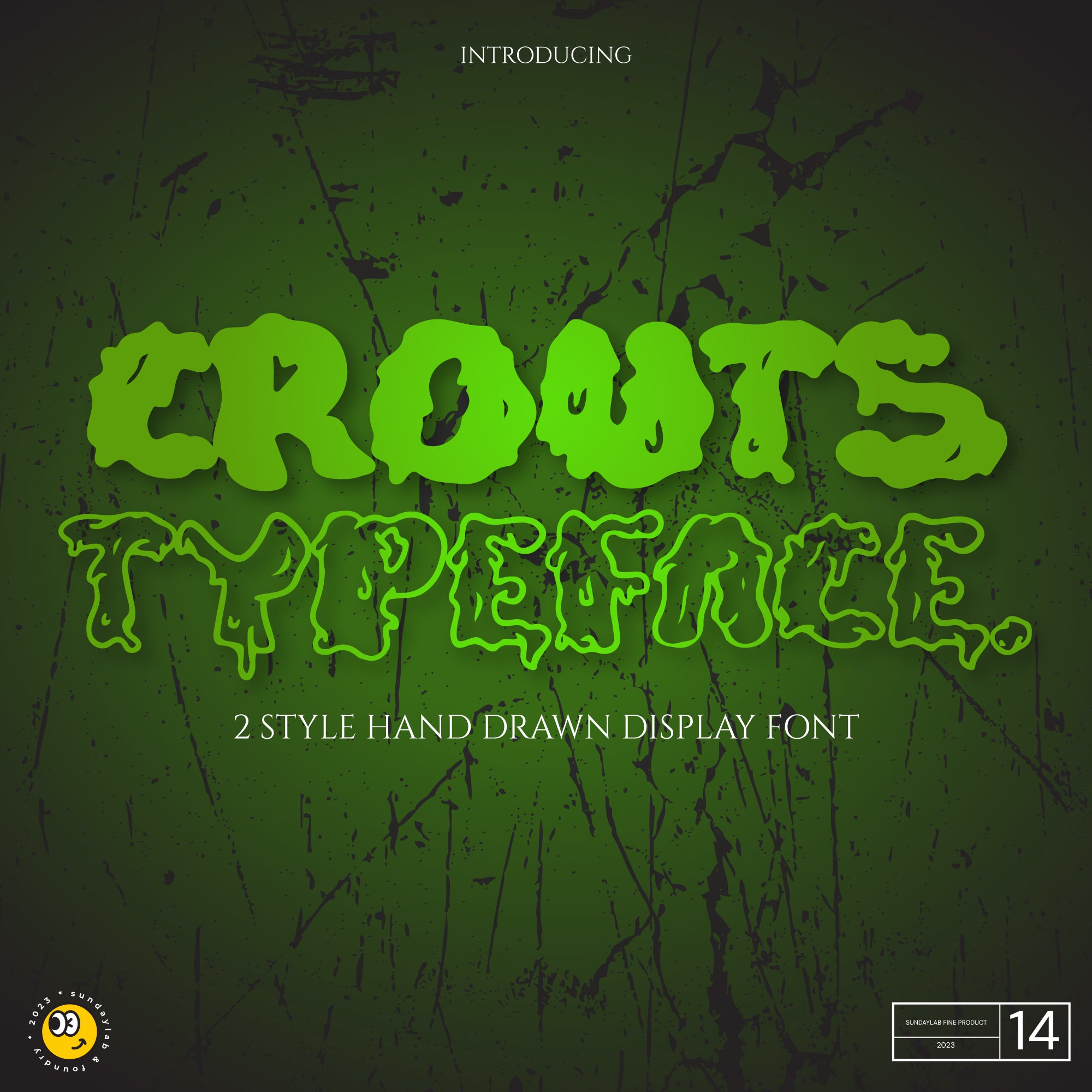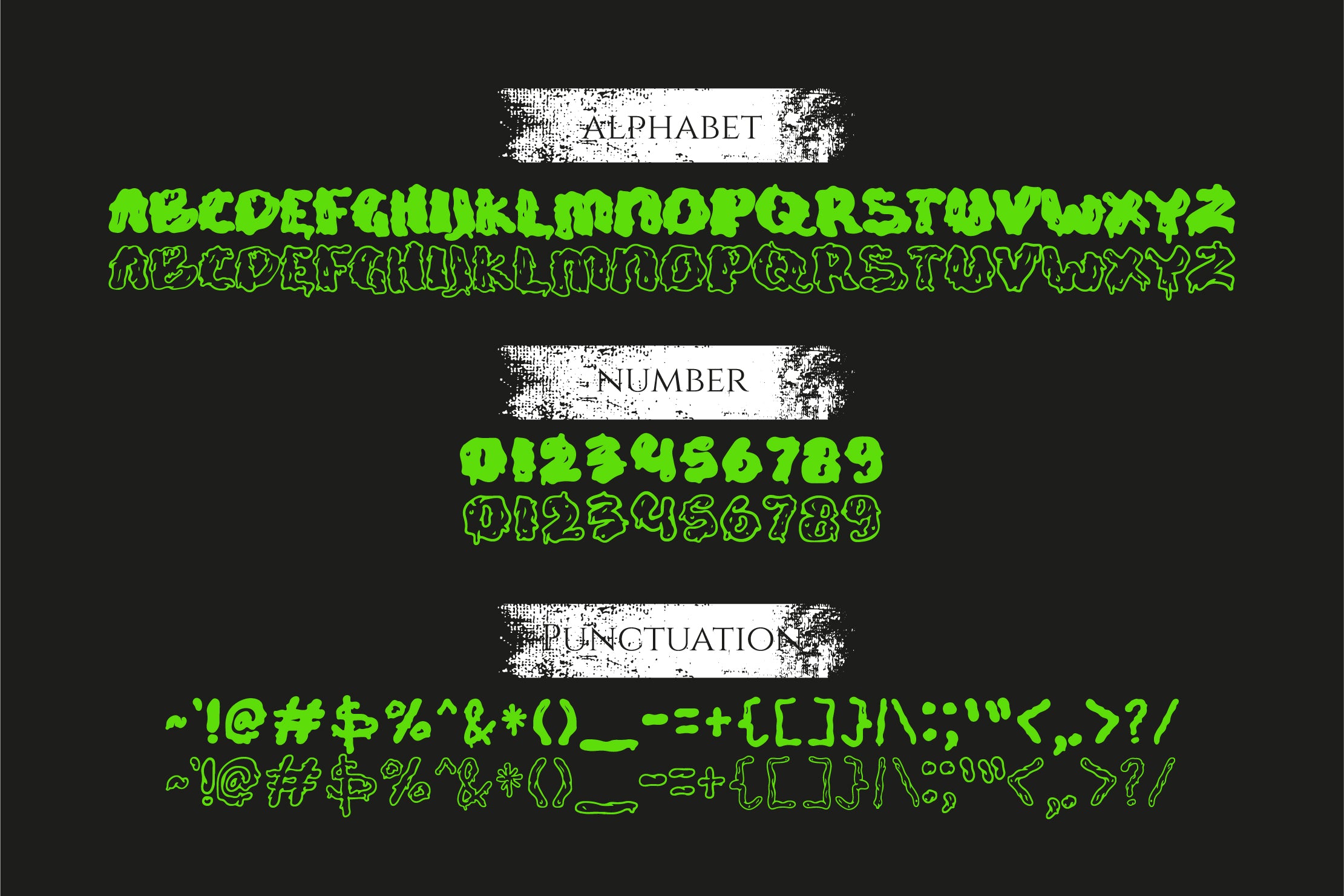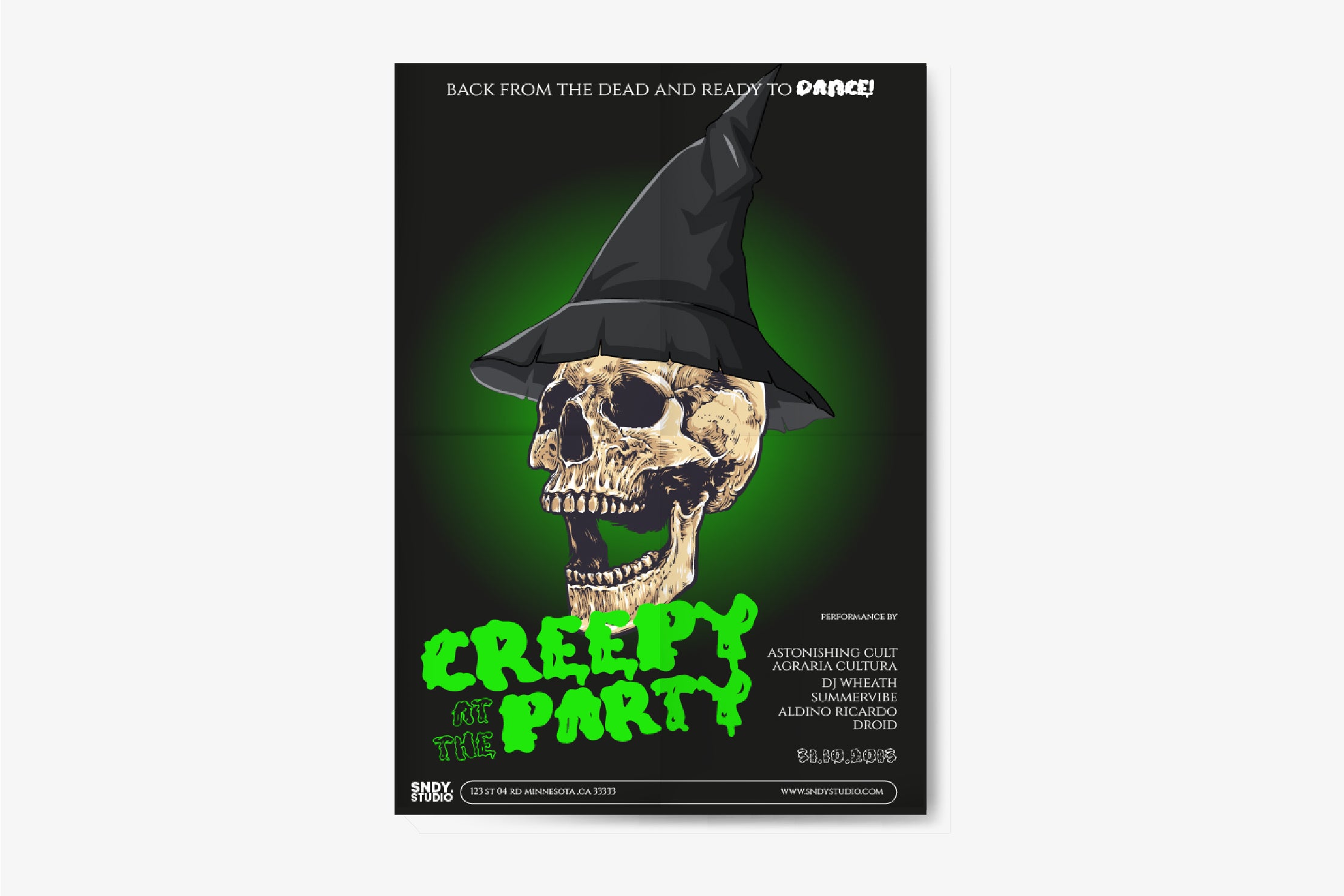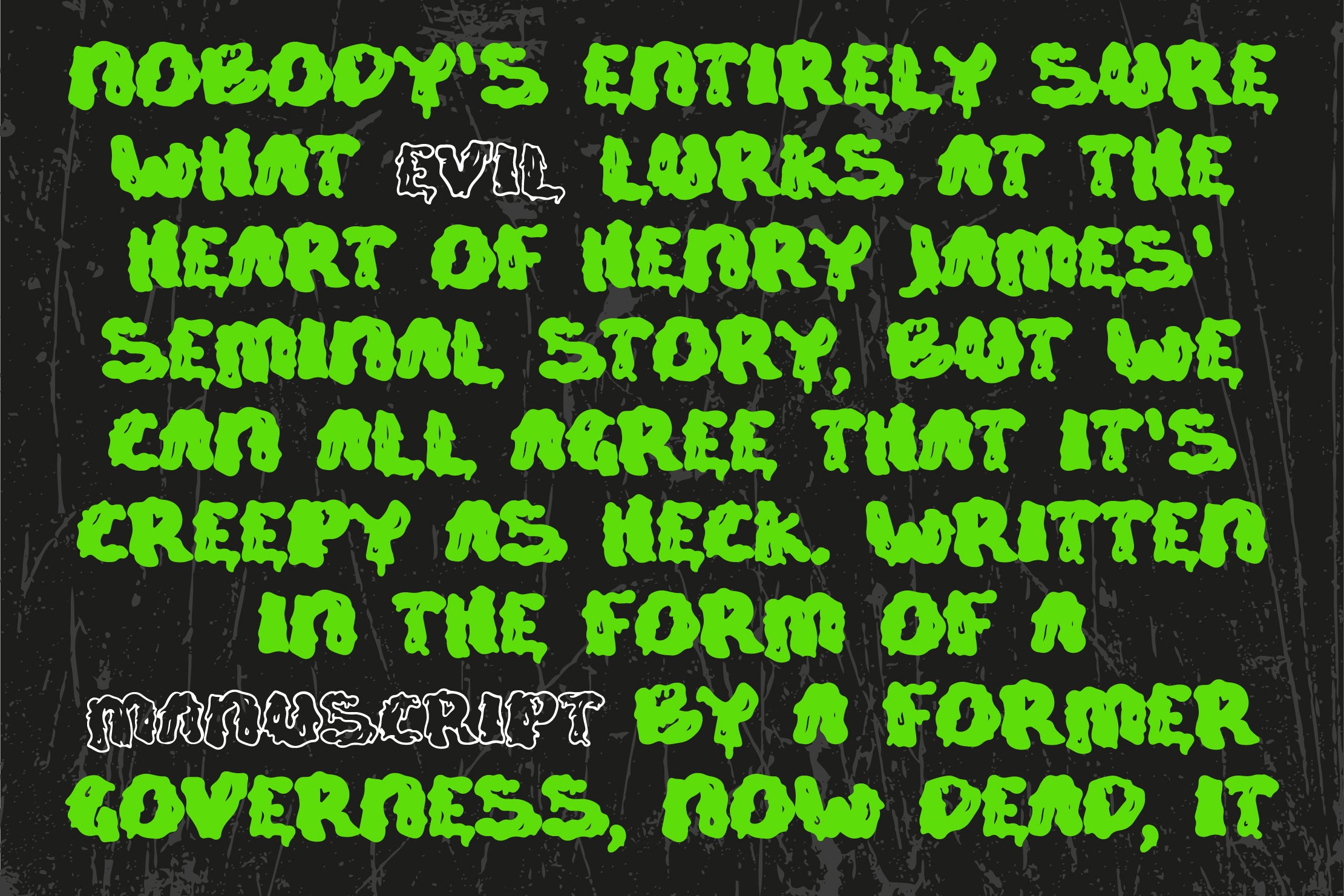
Crouts Typeface
Introducing
Crouts Typeface
CROUTS TYPEFACE is a wild and expressive hand-drawn display typeface that blends psychedelic, horror, punk, and underground aesthetics into one strange and unmistakable lettering style.
Inspired by melted shapes, organic forms, distorted lettering, and creepy psychedelic artwork, Crouts brings an intentionally irregular personality to your typography. Every letter feels warped, alive, and slightly unsettling.
The typeface comes in 2 distinctive styles: Solid and Outline, giving you the flexibility to create bold statement graphics as well as detailed outlined compositions.
Perfect for horror posters, Halloween designs, album covers, band merchandise, T-shirts, streetwear, stickers, flyers, underground events, psychedelic artwork, and experimental branding.
If you're looking for typography that feels weird, creepy, melted, rebellious, and handmade, Crouts Typeface is built for it.
2 Styles: Solid & Outline
Hand-drawn display lettering
Melted and distorted forms
Psychedelic-inspired aesthetic
Horror / creepy personality
Uppercase alphabet
Numbers
Punctuation & symbols
Great for posters and large headlines
Suitable for apparel, album artwork, branding, and merchandise
Crouts Typeface is a hand-drawn display font featuring melted, distorted letterforms with a psychedelic and horror-inspired aesthetic. It includes two styles (Solid and Outline), a full uppercase alphabet, numbers, and punctuation, provided in .otf and .ttf formats with a Read Me file.